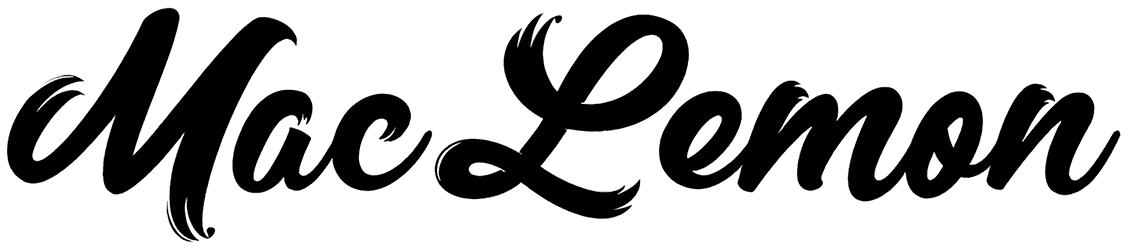
MacLemon Font
Designed byDcoxy - Greg Medina
If you are casting around for a font for your next creative project that gives an organic and natural feel to your design, do not waste seconds downloading MacLemon. This brush font illustrates a trace of strokes and styles created with the ink pen that can play the best role for headlines, titles, or any text that needs attention.